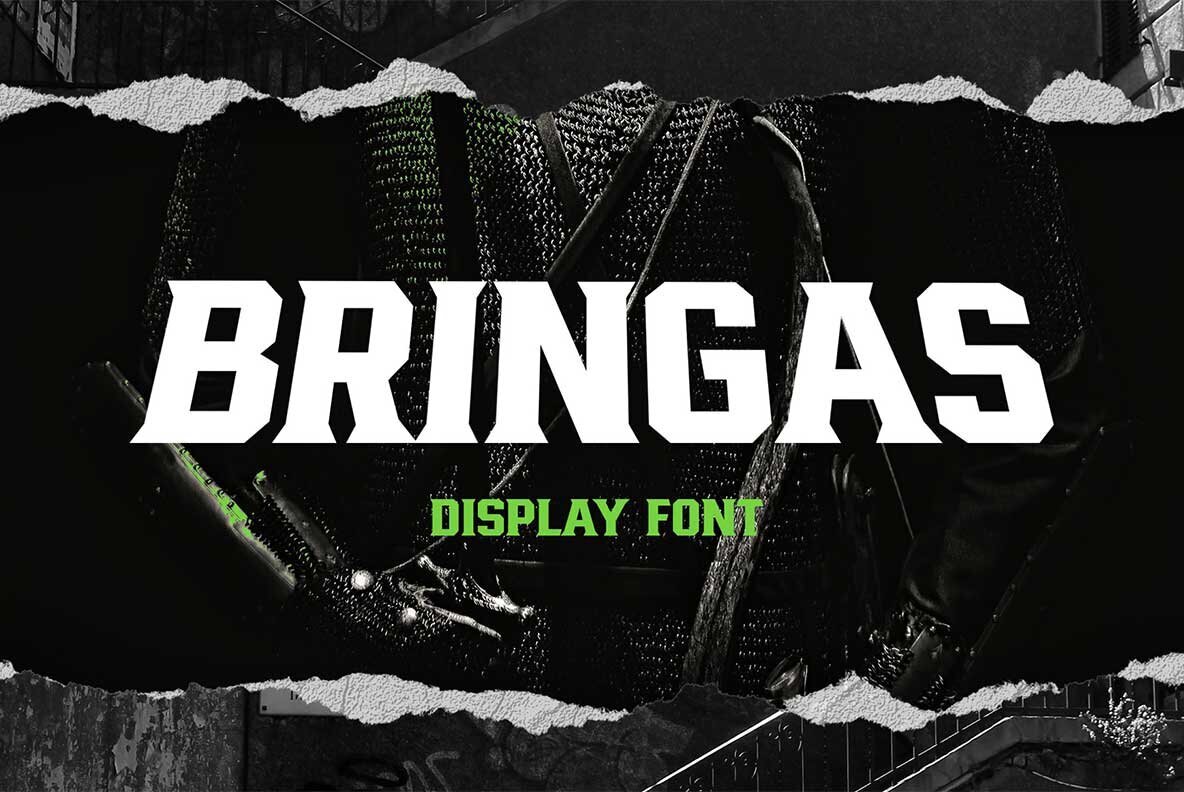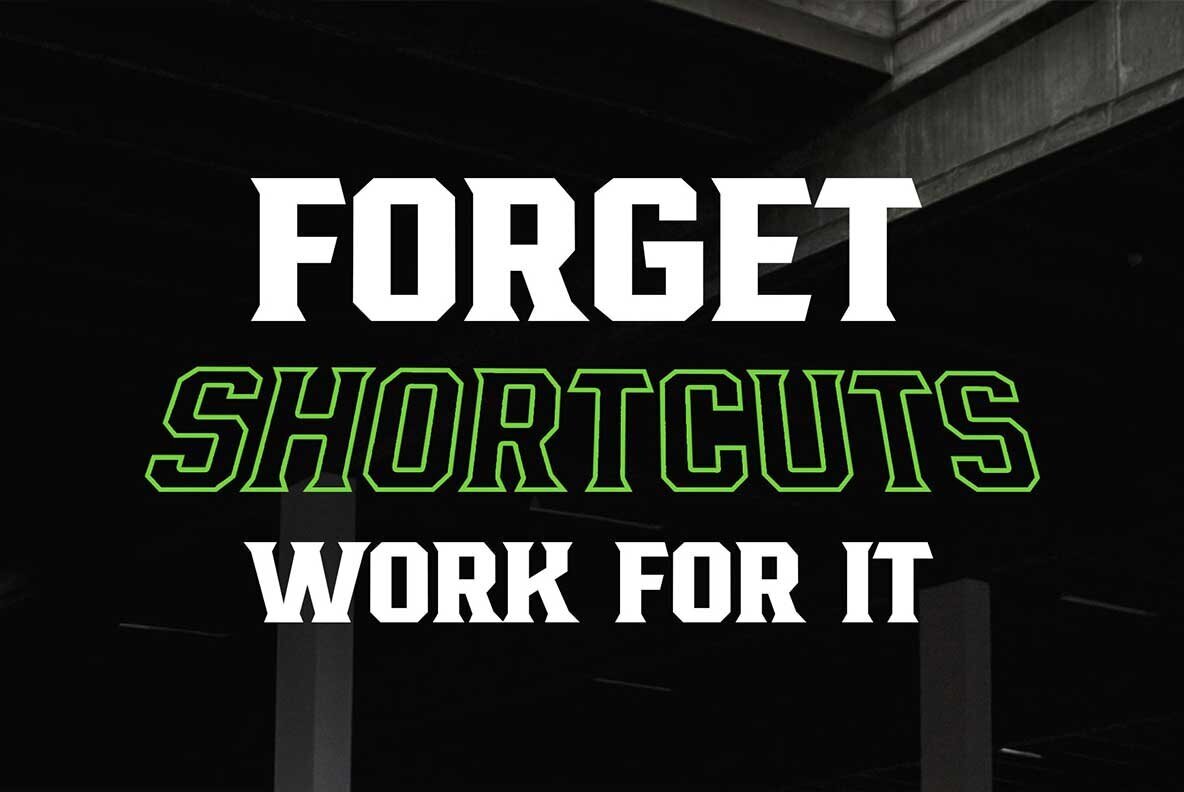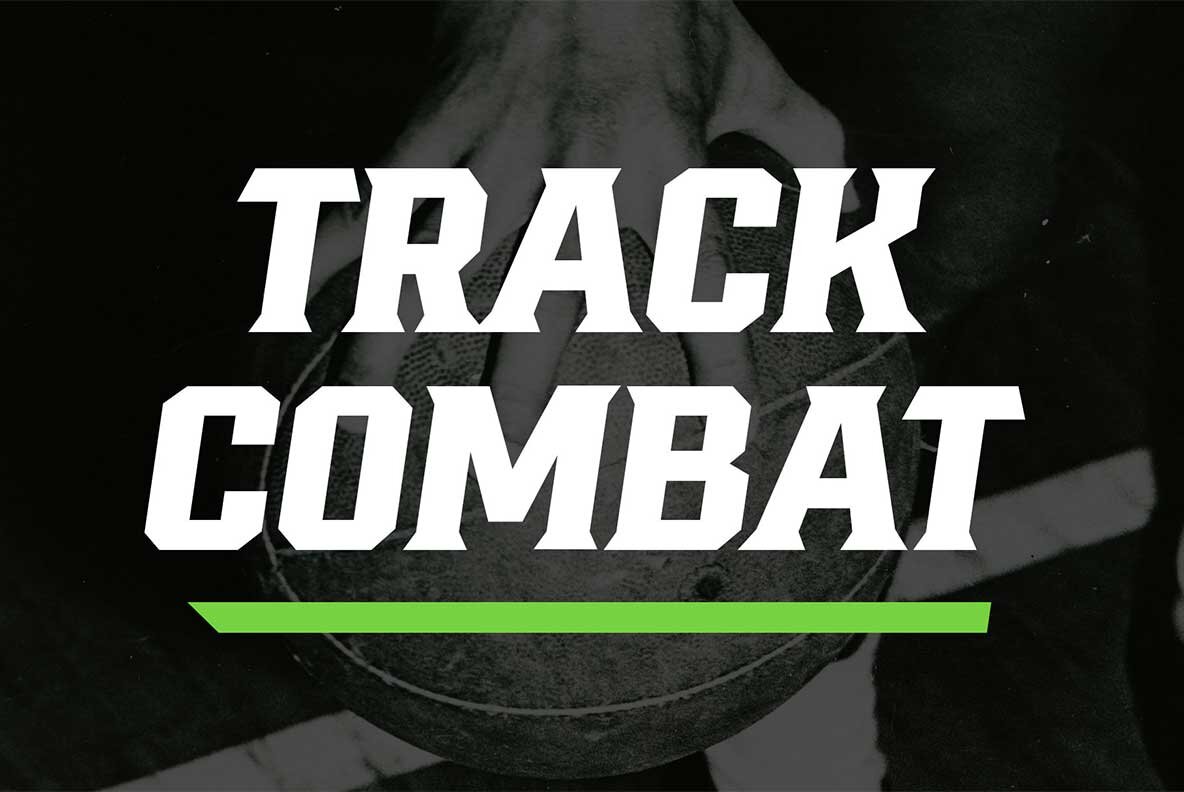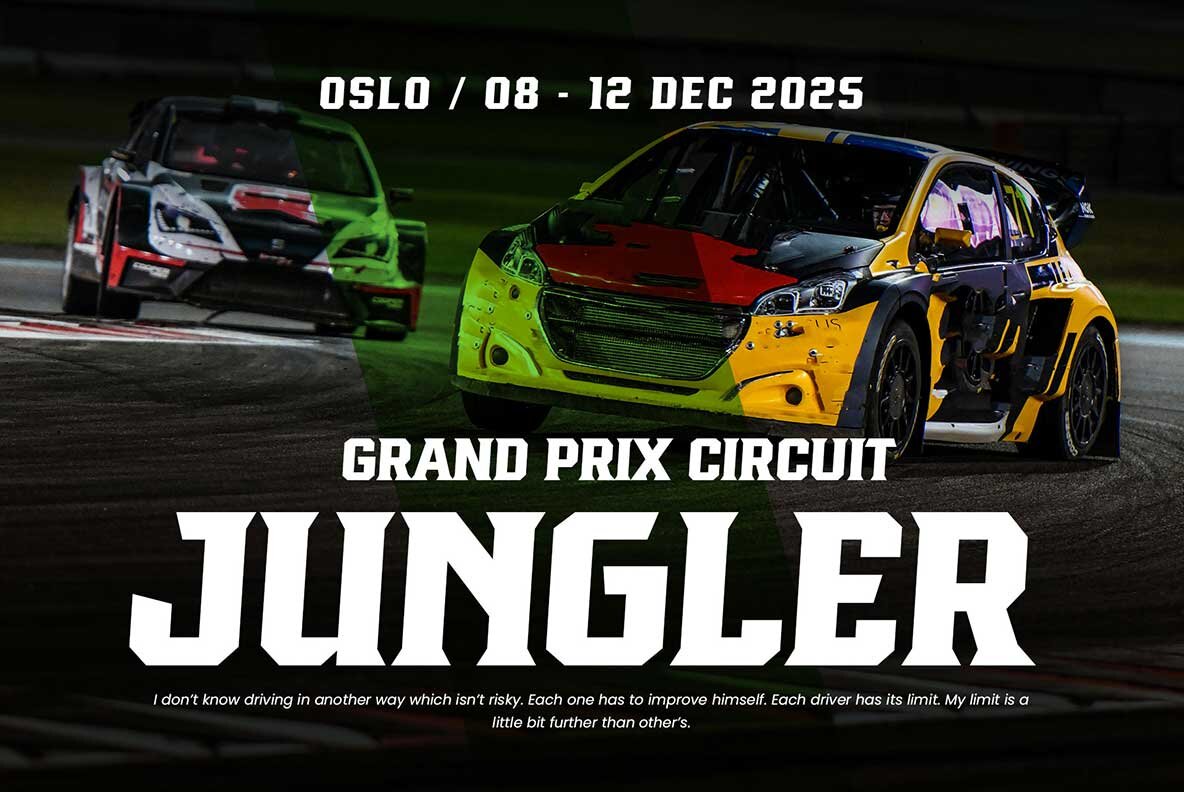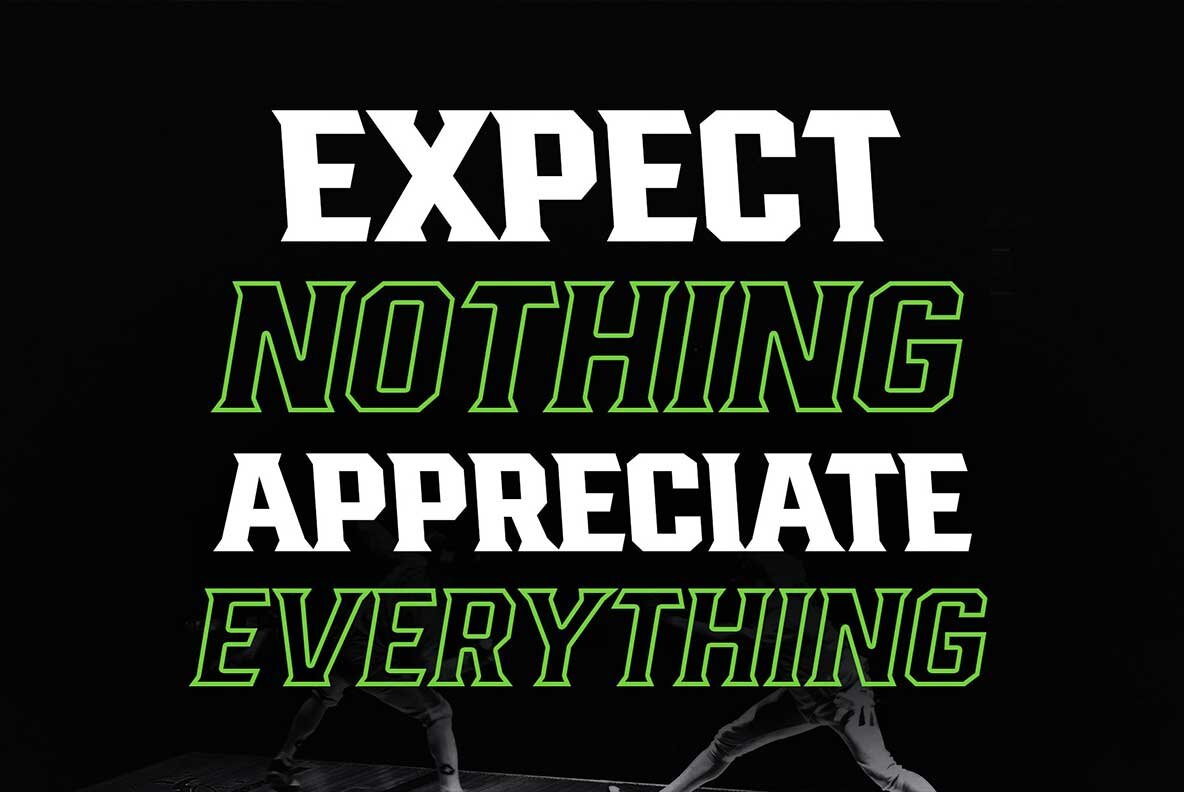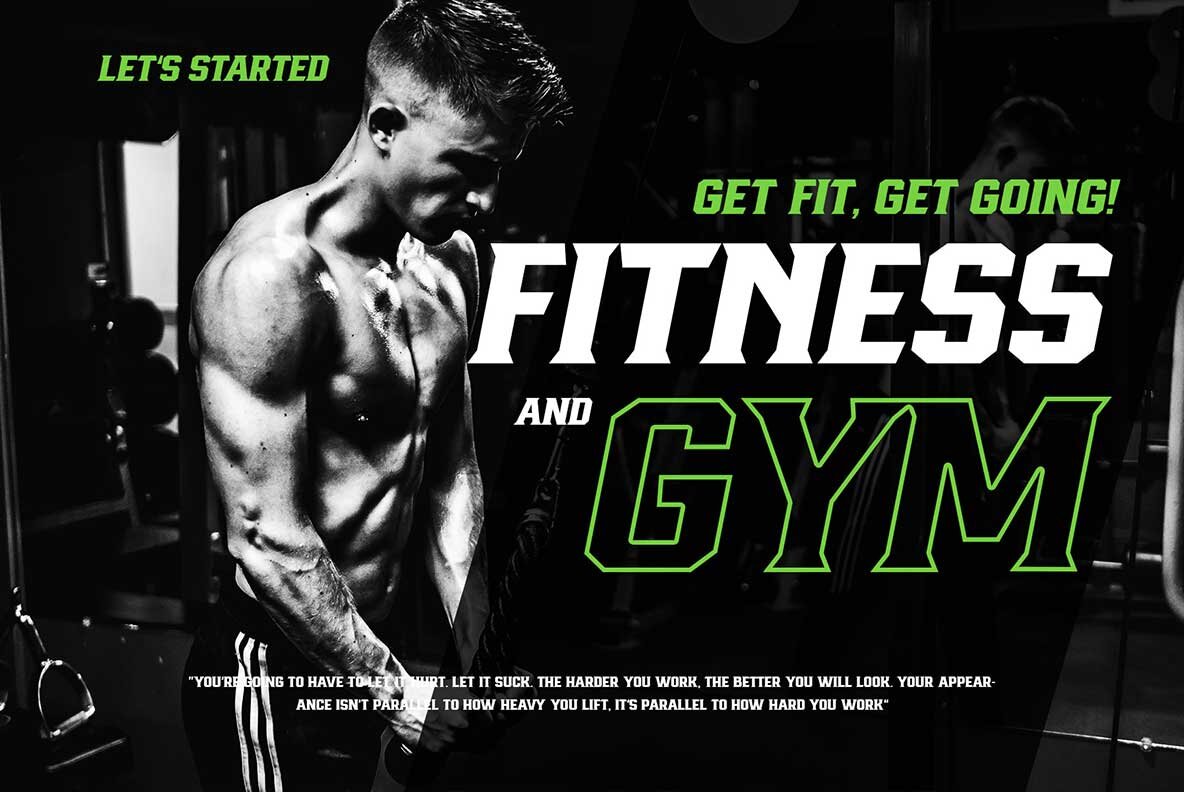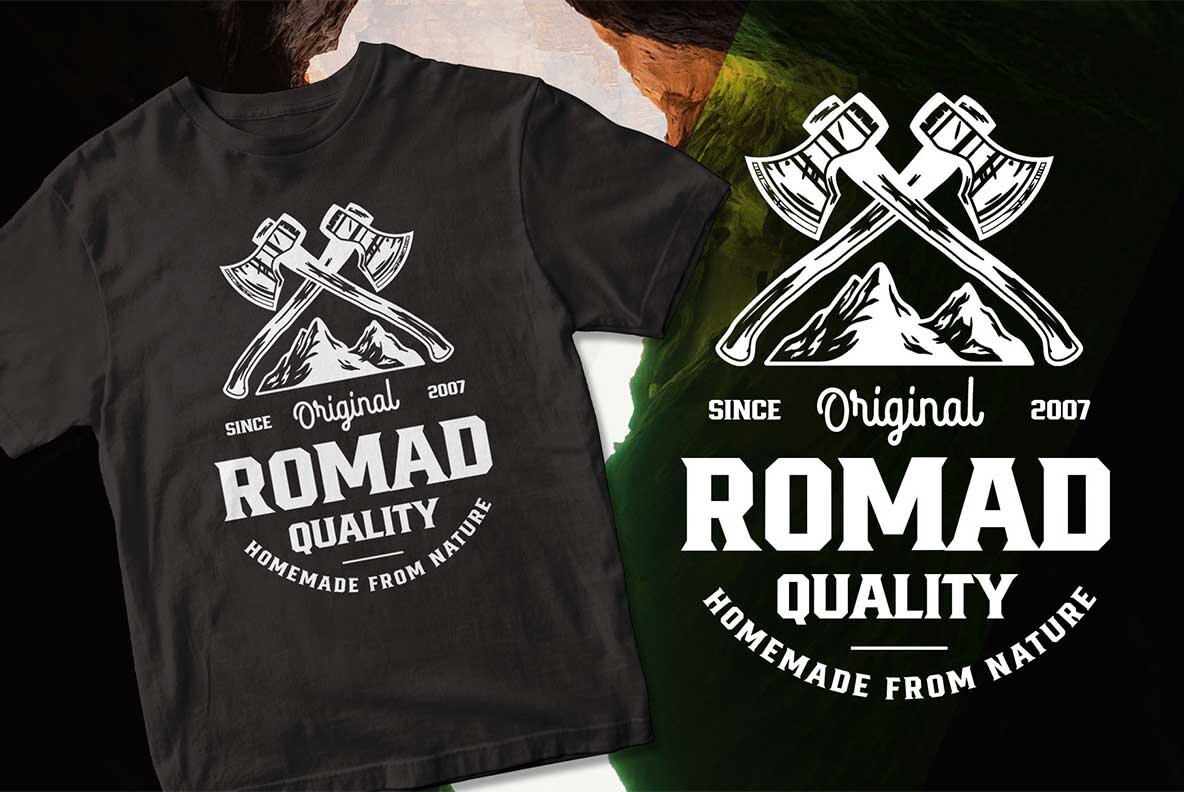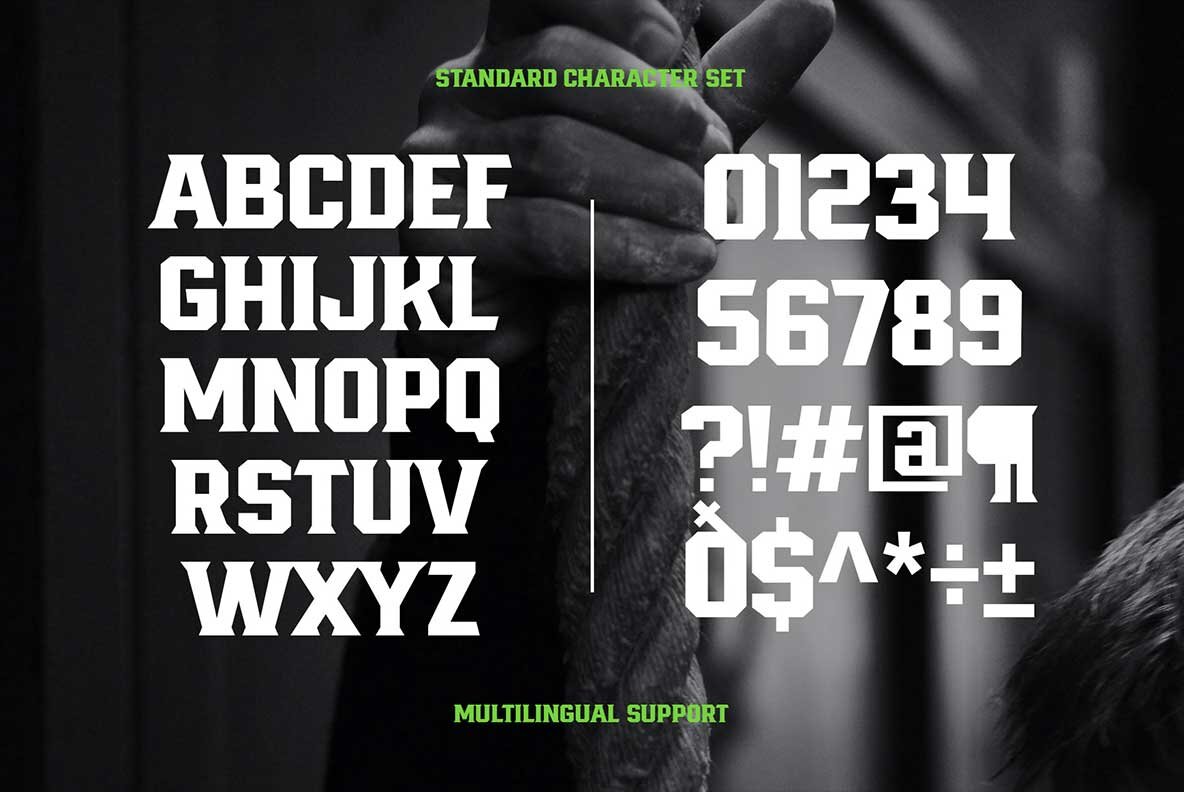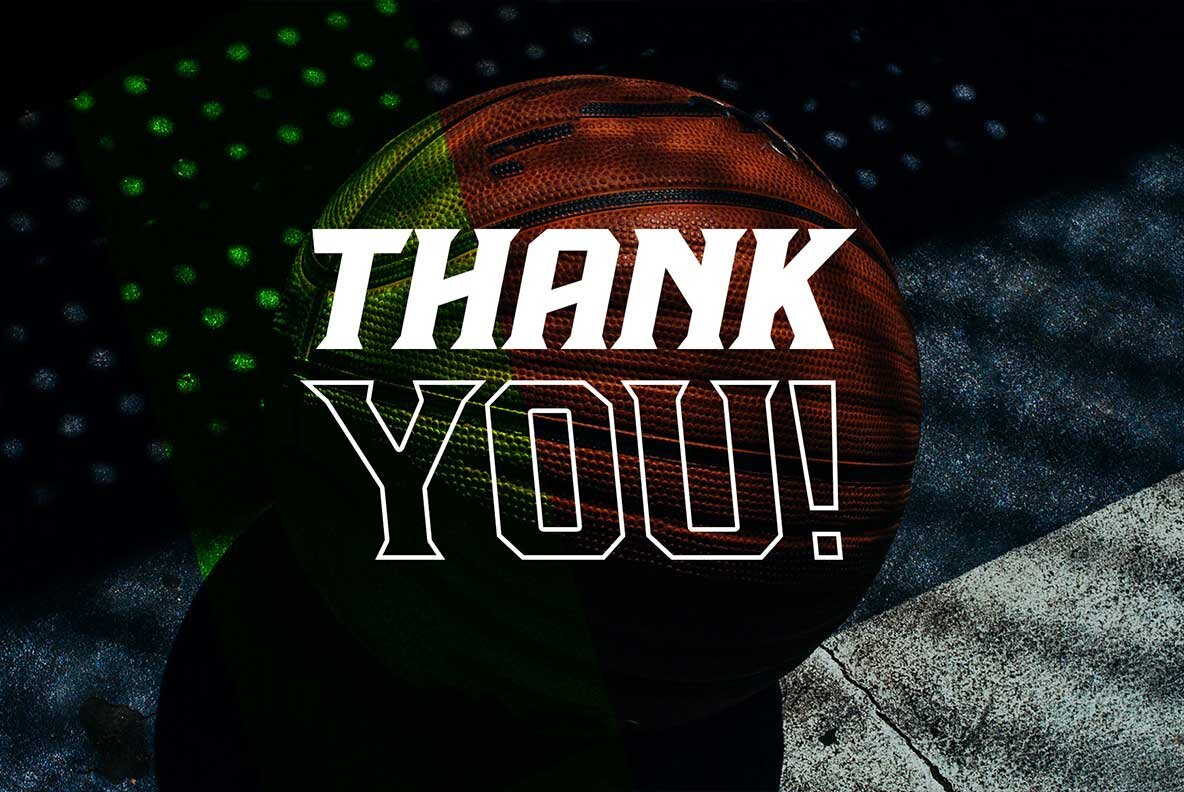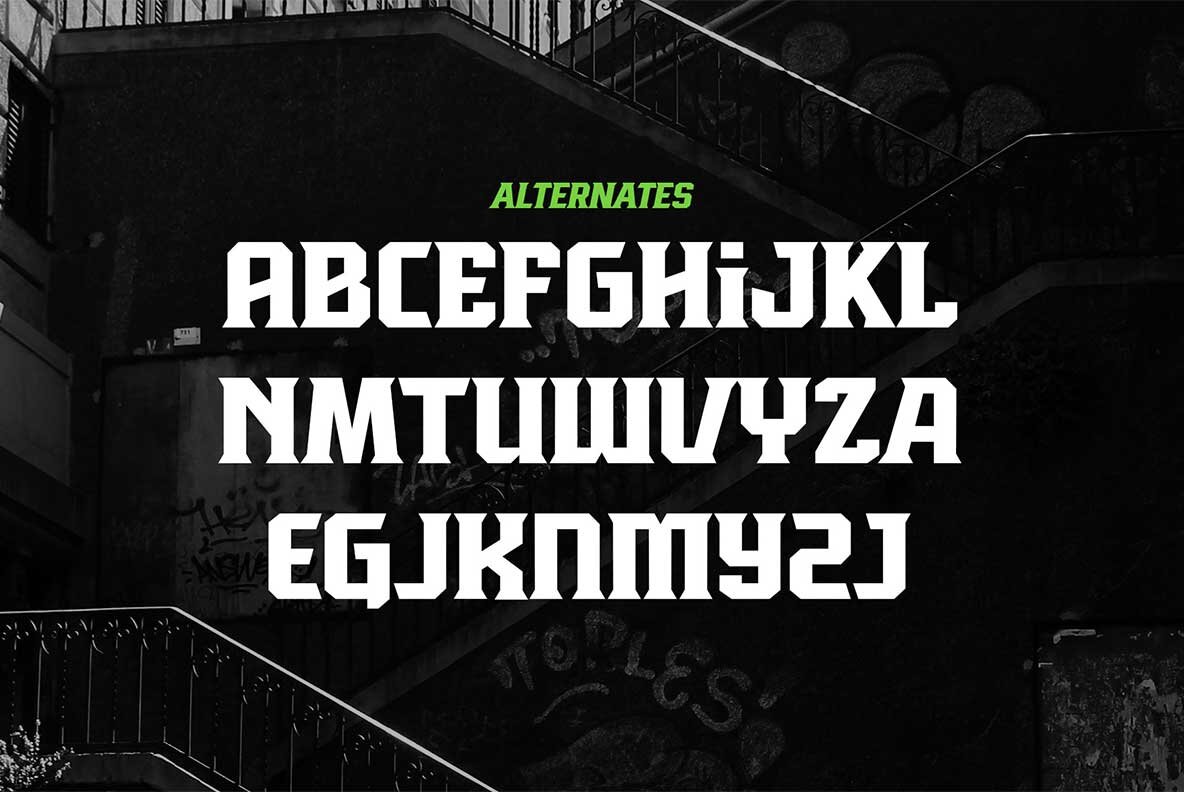
Bringas Font
Bringas Regular
Bringas stands out with bold slab serif shapes, inspired by the energy of 90s typography and classic vintage aesthetics. Its confident lines and strong presence make every letter command attention, combining techno and sporty characteristics for a distinctive visual impact. The all-caps design shines in projects that need an assertive, athletic look, from posters and sports jerseys to logos and banners. This typeface features extra special characters and broad multilingual support, ensuring adaptability for diverse applications. Bringas adds a powerful, sporty edge to display work, making it a reliable choice for designers seeking a combination of vigor and style.Bringas – Bold Slab Serif with Vintage Sport Style